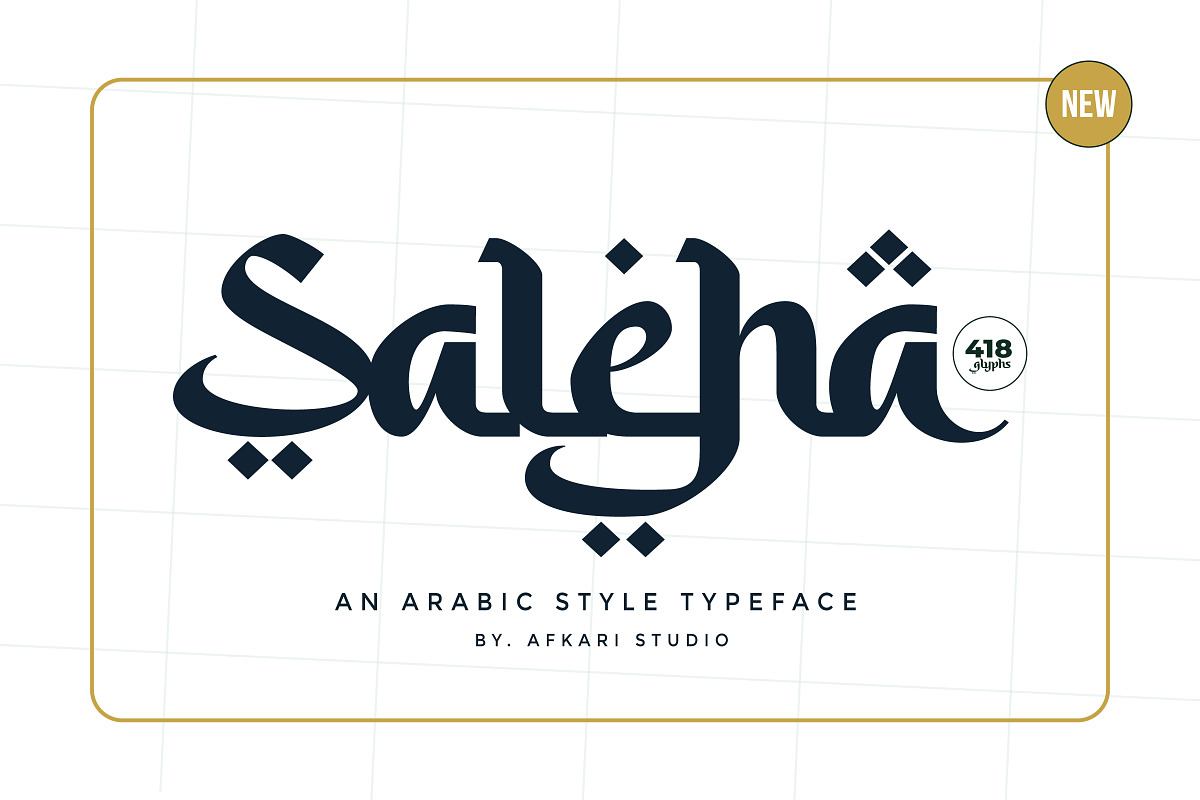
Saleha - An Arabic Style Typeface Free Download
Saleha Font Free Download is an Arabic-style typeface that blends cultural elegance with contemporary design. Inspired by traditional Middle Eastern calligraphy, Saleha features flowing curves and intricate details that make it perfect for branding, packaging, event posters, and cultural projects with a refined, exotic touch.
This font is ideal for designers seeking to evoke authenticity and heritage while maintaining modern usability. Whether you’re creating Ramadan-themed graphics, elegant invitations, or unique logo designs, Saleha brings artistic beauty to your typography. Saleha Font Free Download allows you to experiment with its rich and ornamental character for personal use before purchasing a license for commercial applications.
Celebrate culture and creativity with Saleha — a font that tells a story through every letter.